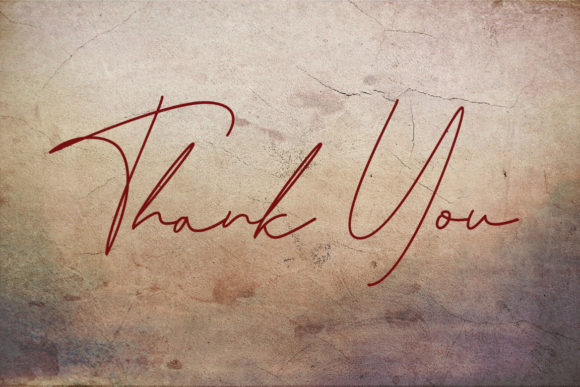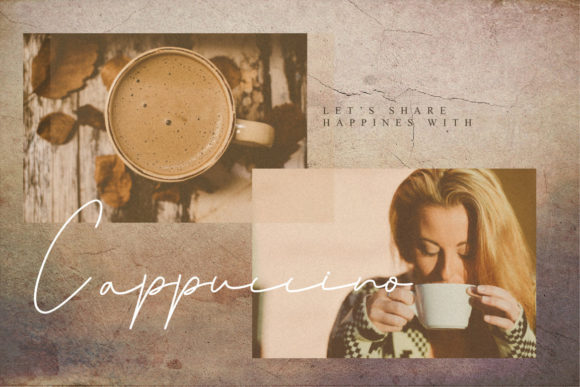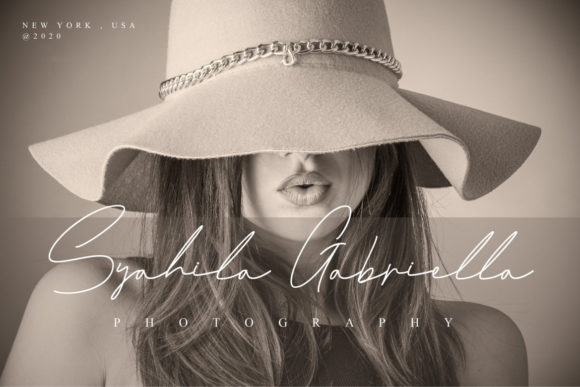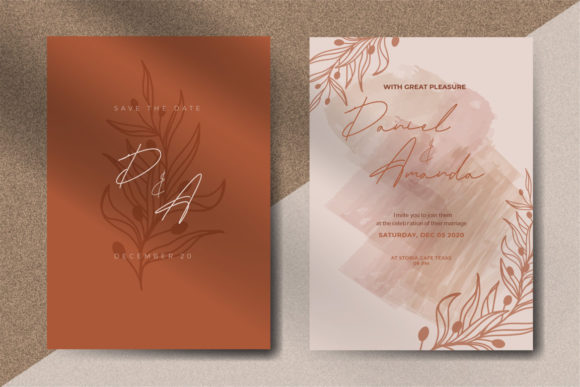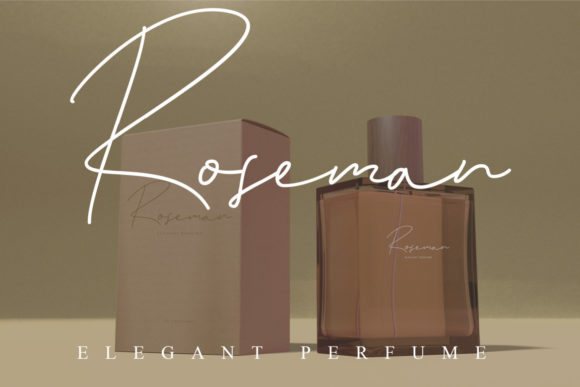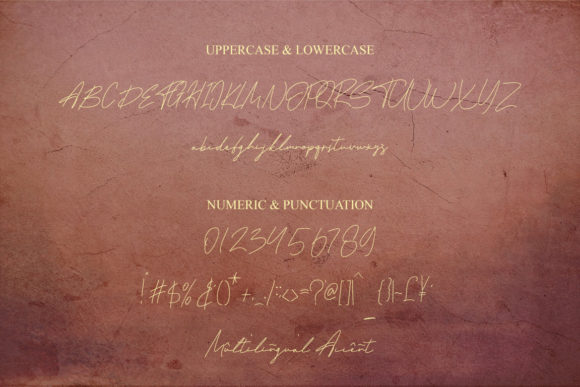
Discover the Charm of Amstroms Font: Elevate Your Designs with Elegance
In the world of typography, fonts play a crucial role in conveying the tone and personality of a design. For those seeking a touch of elegance and charm, Amstroms Font is an excellent choice. This beautiful font is perfect for a variety of design projects that require a personalized style, such as wedding invitations, thank you cards, weddings, greeting cards, logos, and more.
What Makes Amstroms Font Special?
Amstroms Font stands out for its unique blend of charm and sophistication. Its elegant strokes and classic feel make it an ideal choice for designers and crafters looking to add a touch of refinement to their work. Whether you’re creating a romantic wedding invitation or a professional logo, Amstroms Font is sure to impress.
Characteristics of Amstroms Font
So, what makes Amstroms Font so special? Here are some of its key characteristics:
- Elegant and Charming: Amstroms Font exudes a sense of sophistication and refinement, making it perfect for designs that require a touch of elegance.
- Versatile: This font is suitable for a wide range of design projects, from wedding invitations and greeting cards to logos and more.
- Classic Feel: Amstroms Font has a timeless quality that ensures your designs will never go out of style.
- Personalized Style: With Amstroms Font, you can add a personal touch to your designs, making them truly unique and memorable.
Uses of Amstroms Font
Amstroms Font is incredibly versatile, making it suitable for a wide range of design projects. Here are some of the ways you can use this beautiful font:
- Wedding Invitations: Create stunning wedding invitations that set the tone for a romantic and elegant celebration.
- Thank You Cards: Express your gratitude with beautifully designed thank you cards that make a lasting impression.
- Greeting Cards: From birthdays to holidays, Amstroms Font is perfect for creating greeting cards that are both personal and elegant.
- Logos: Add a touch of sophistication to your logo designs with Amstroms Font, making your brand stand out from the crowd.
- Stationery: Elevate your stationery designs with Amstroms Font, creating a cohesive and refined look.
Tips for Using Amstroms Font
To get the most out of Amstroms Font, here are some tips to keep in mind:
- Pair with Other Fonts: Experiment with pairing Amstroms Font with other fonts to create a unique and visually appealing design.
- Adjust Font Size: Play around with different font sizes to create visual hierarchy and emphasize important information.
- Use in Combination with Images: Combine Amstroms Font with beautiful images to create a stunning design that’s both elegant and effective.
Amstroms Font is a beautiful and elegant font that’s perfect for designers and crafters looking to add a touch of sophistication to their work. With its versatile nature and classic feel, it’s suitable for a wide range of design projects, from wedding invitations and greeting cards to logos and more. By incorporating Amstroms Font into your designs, you can create stunning and memorable pieces that leave a lasting impression.